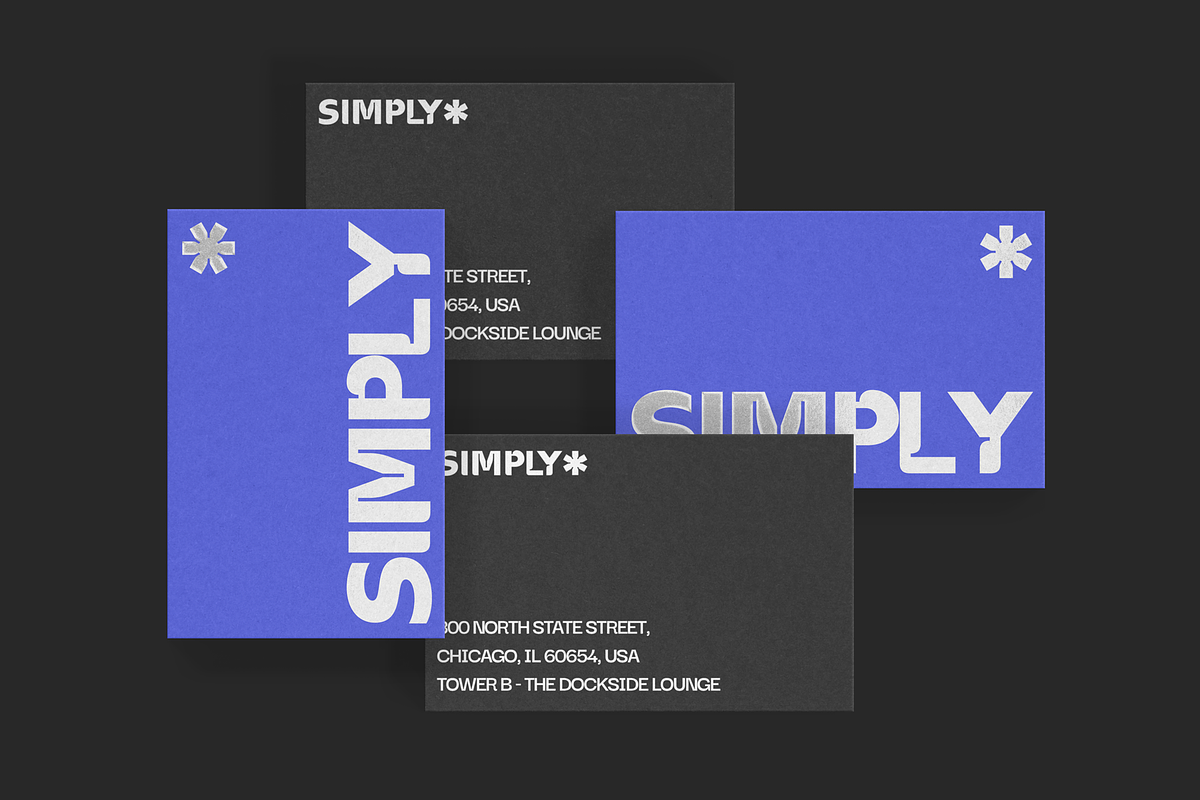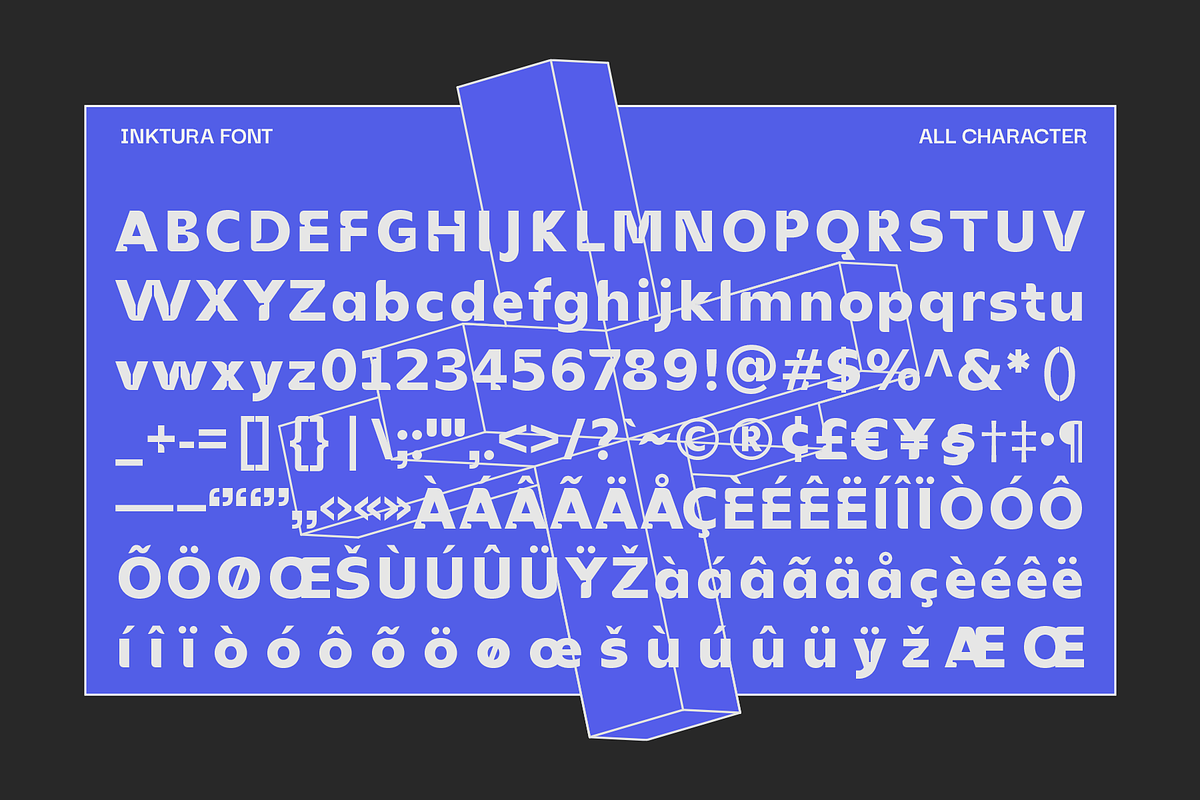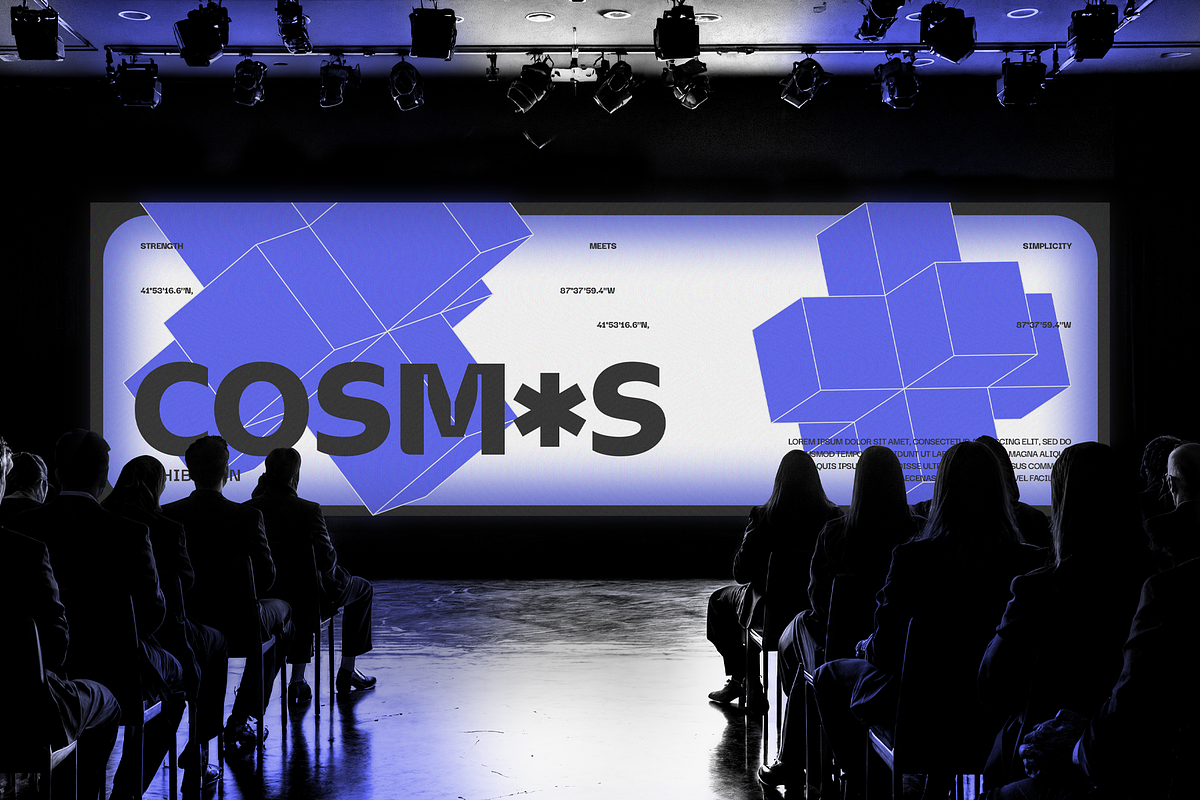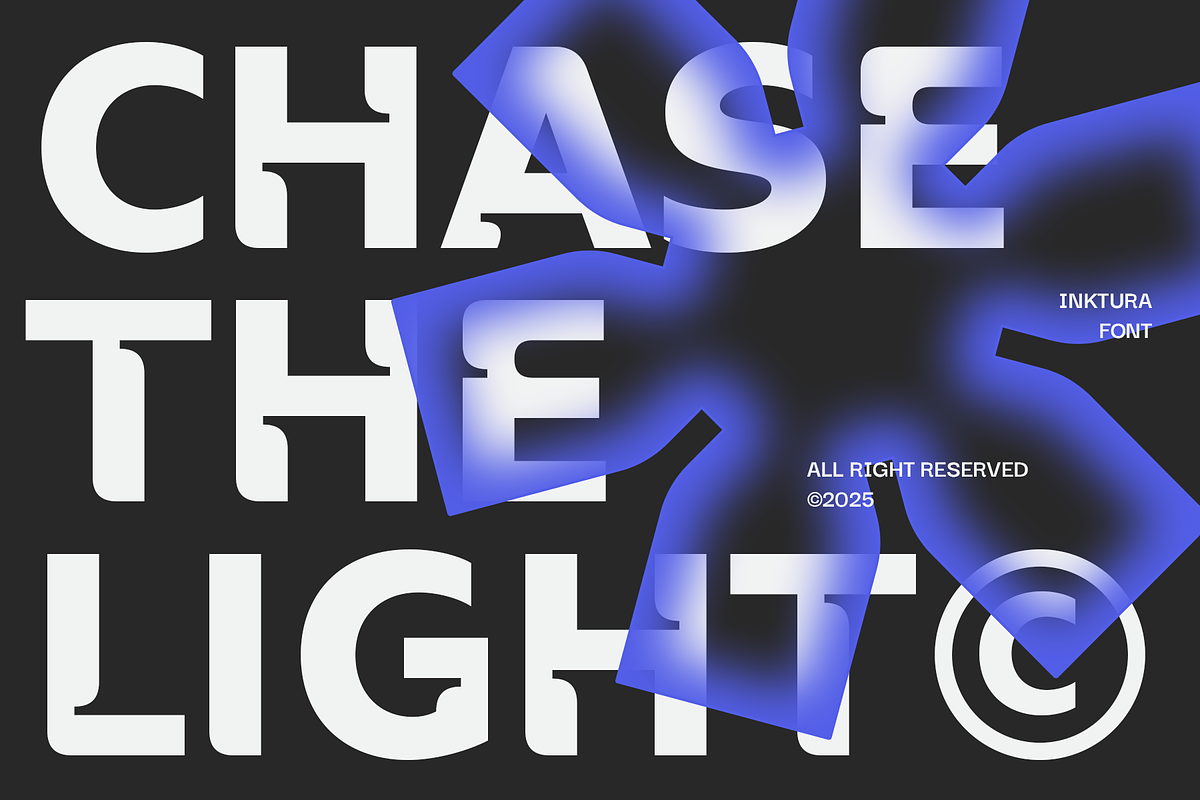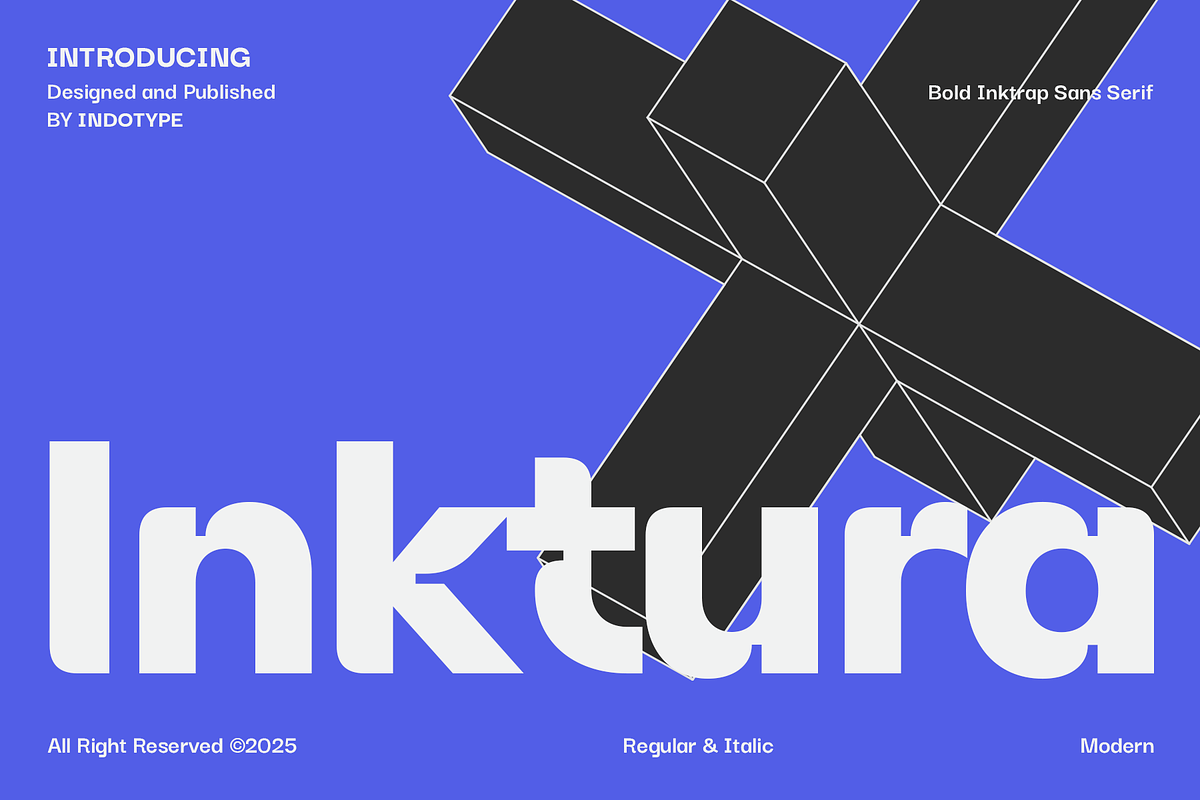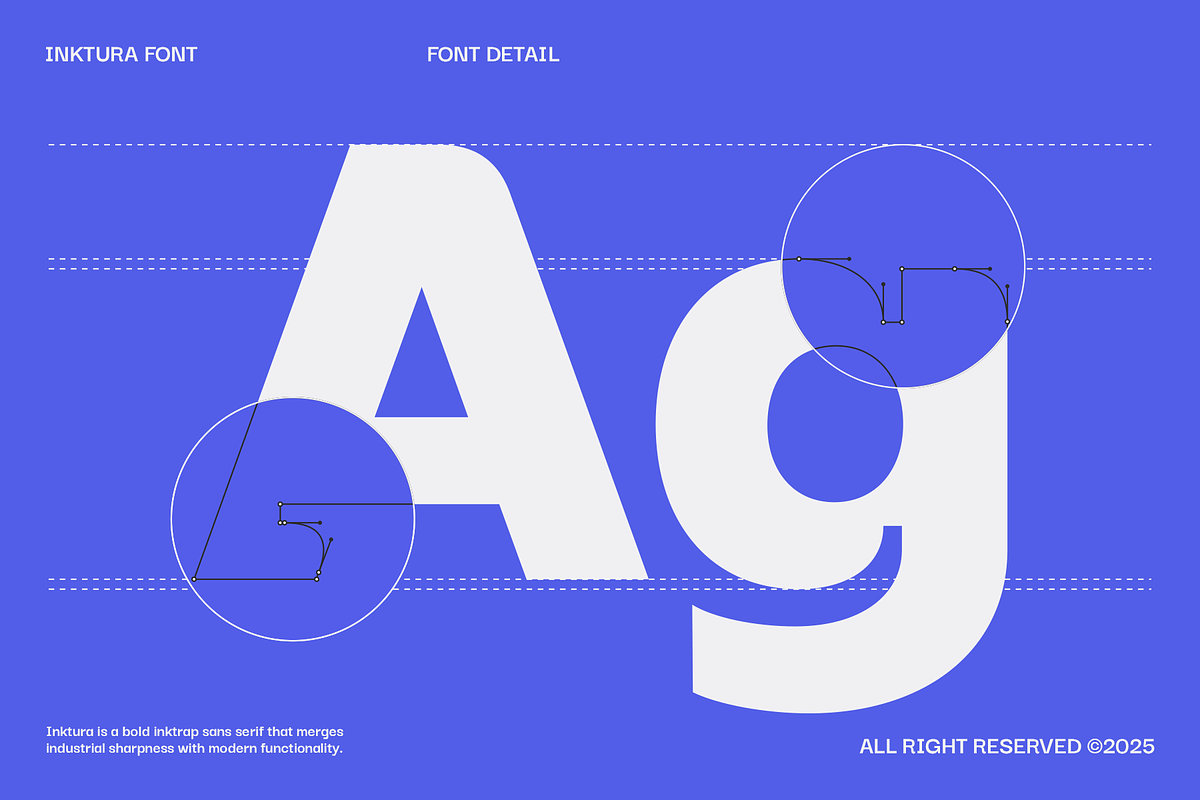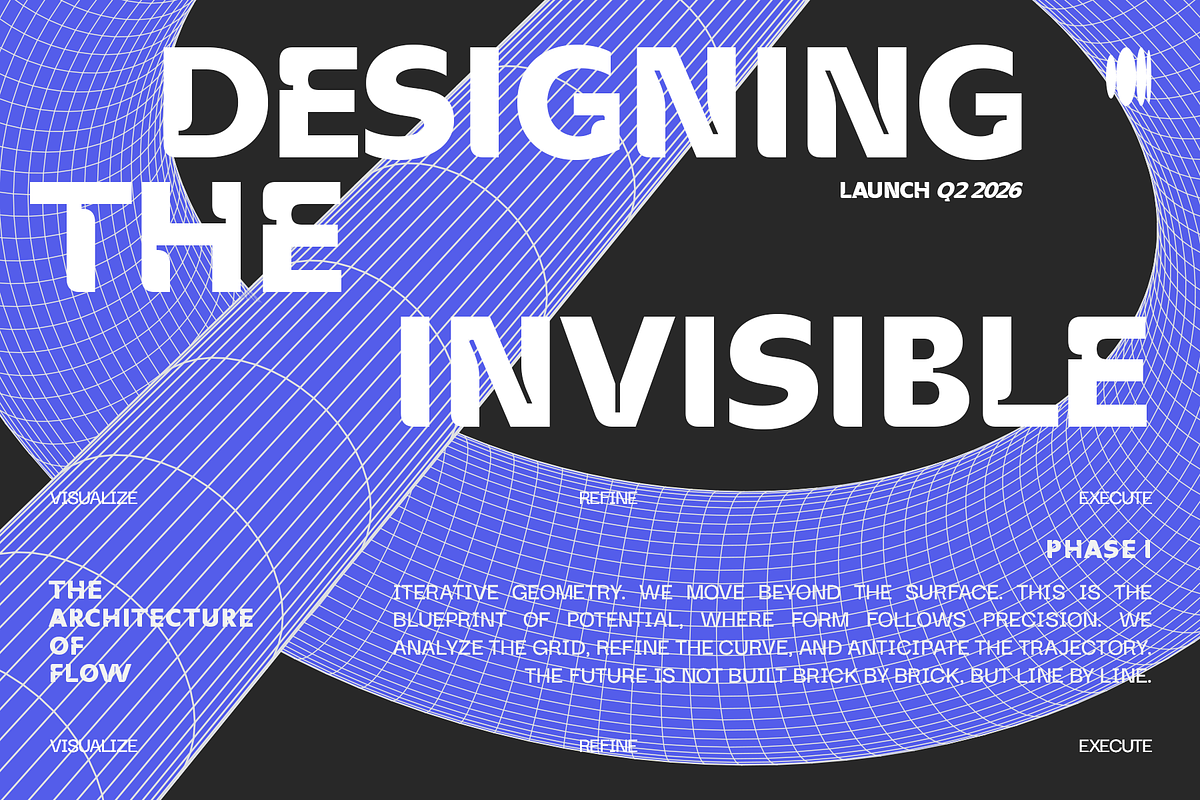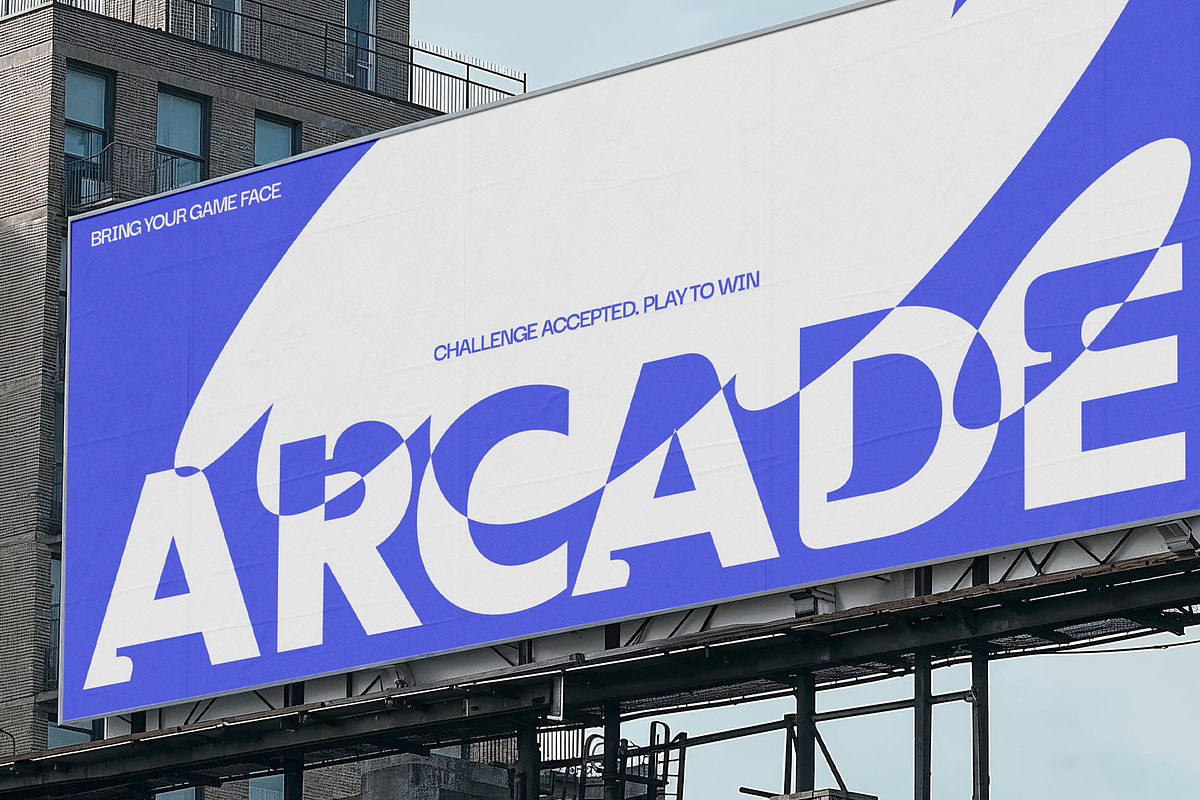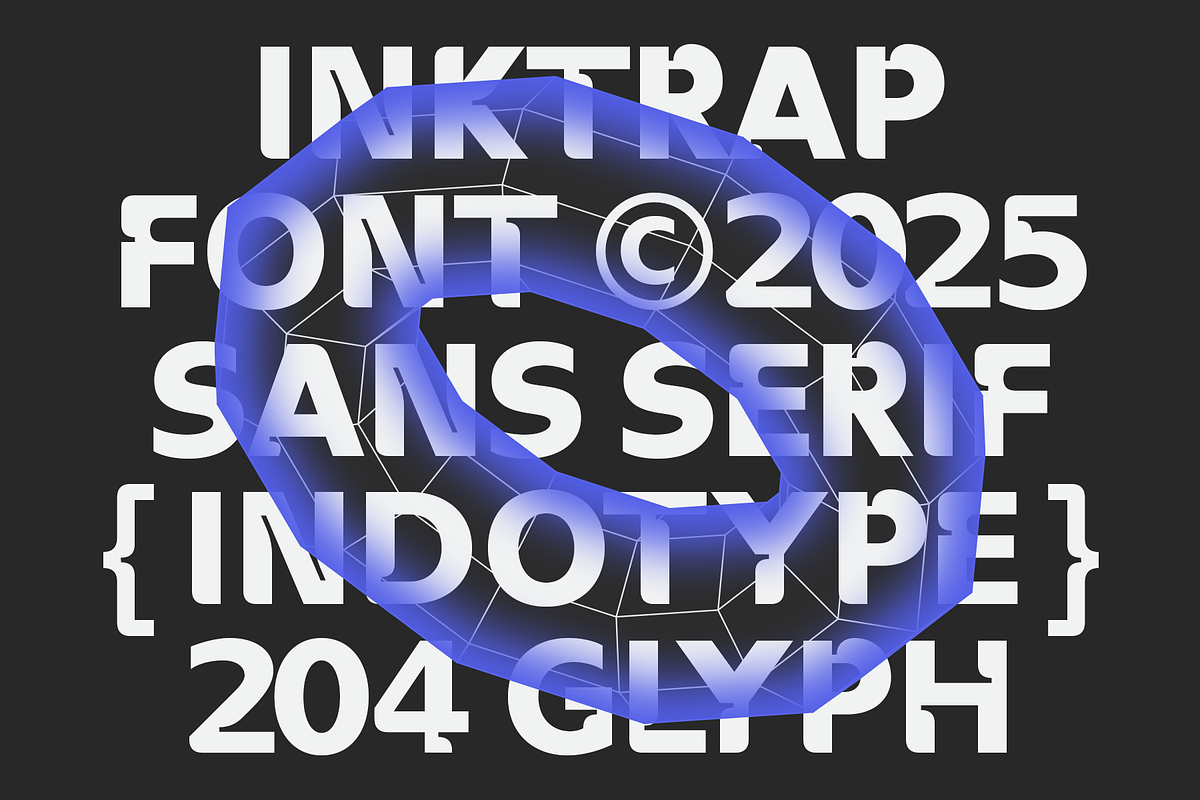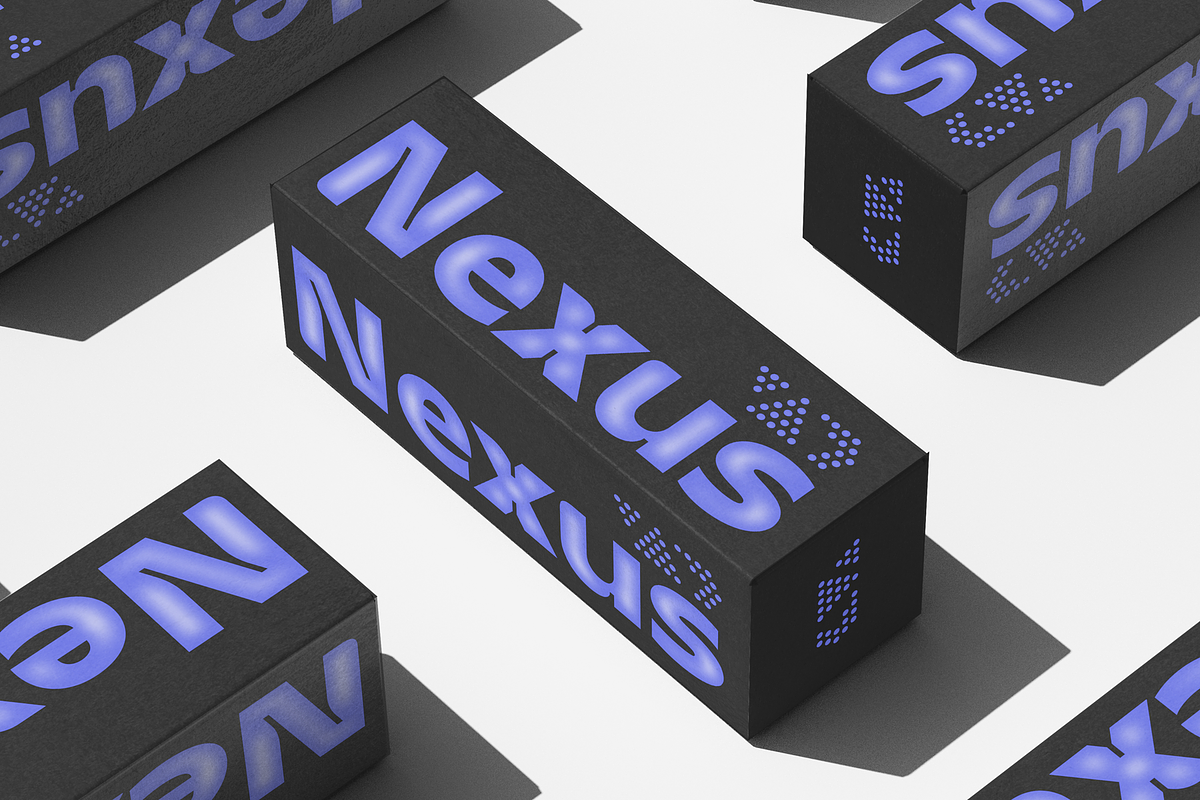
Inktura - Bold Inktrap Sans Serif
Introducing Inktura, a bold and striking sans-serif typeface that marries industrial strength with sophisticated typographic detailing. Defined by its prominent ink traps—those sharp, angled cuts at the junctions of letterforms—Inktura is engineered for maximum impact in both print and digital display. This functional design feature, rooted in traditional printing, evolves into a bold aesthetic statement, giving the font a distinctive architectural quality. Available in both commanding Regular and dynamic Italic styles, Inktura is built for the modern designer who isn’t afraid to make a statement. Its robust weight and geometric construction command attention, making it perfect for headlines, branding, posters, and editorial design where confidence is key. Inktura is more than just bold; it’s intelligently bold, designed to hold its integrity at any scale.
- Ideal for: Bold Headlines, Tech & Editorial Branding, Poster Design, Magazine Covers, Packaging, Logotypes.
- Classification: Sans-Serif, Display, Geometric, Ink Trap.
- Attributes: Bold, Industrial, Architectural, Confident, Modern, Striking, Technical.